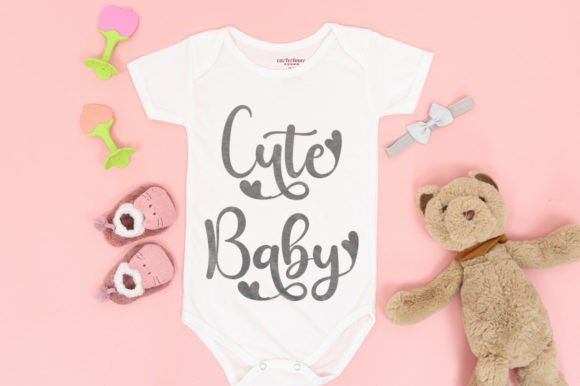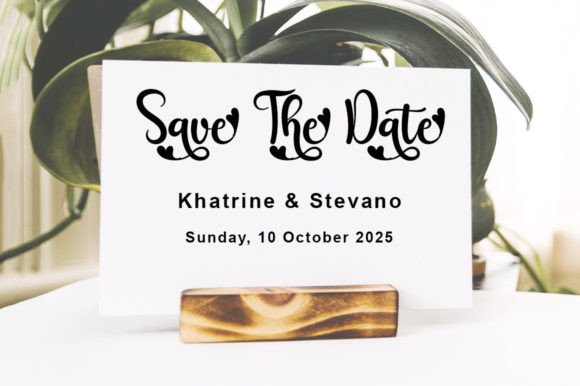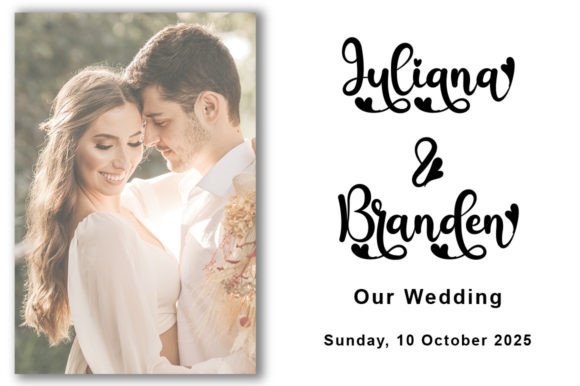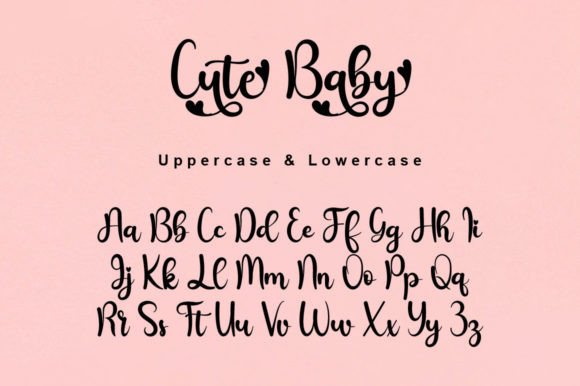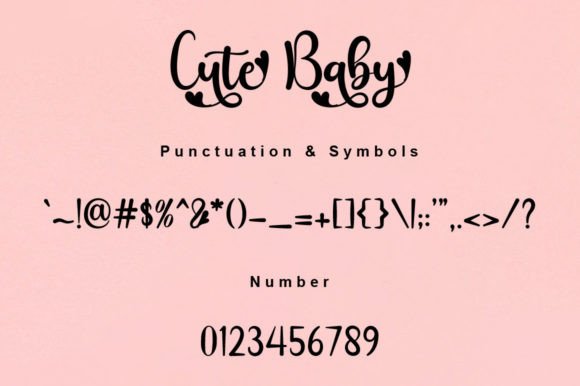
The Sweet Charm of Cute Baby Font
Who among us hasn’t been captivated by the whimsical world of handwritten fonts? Perhaps it was while browsing through a vintage book or admiring the intricate details of a handwritten card that you first fell in love with the art of handwritten typography. For designers, the quest for the perfect handwritten font is a never-ending journey, and today, we’re excited to introduce you to a new favorite: Cute Baby Font.
| 👤 Author | patahilah studio |
Cute Baby Font is an elegant and dainty handwritten font that features sweet and delicate swashes, making it perfect for adding a touch of whimsy to your designs. Whether you’re creating letterheads, titles, or stationery, this original look is sure to captivate your audience. The value of Cute Baby Font lies in its versatility and ability to add a personal touch to any design project, making it a valuable addition to any designer’s toolkit.
Cute Baby Font Key Features
- Character Set: The font includes a wide range of characters, including uppercase and lowercase letters, numbers, punctuation marks, and special characters, making it suitable for various applications.
- Unique Characteristics: The font’s unique design features rounded shapes, cute details, and a playful feel, making it perfect for applications that require a childlike or whimsical tone.
Cute Baby Font Review
I recently had the chance to work with the ‘Cute Baby Font’, and I have to say it’s a mixed bag. Here’s my honest review.
- The font is undeniably cute and perfect for child-related projects, like baby announcements, nursery decor, or children’s books.
- The font is highly customizable, with a wide range of colors and sizes available.
- The font is relatively easy to read, even at smaller sizes, making it a great choice for text-heavy projects.
- The font is not ideal for formal or professional projects, as it may come across as too childish.
- The font lacks bold and italic styles, which can limit its versatility.
- The font may not be suitable for projects that require a high level of sophistication or elegance.
Overall, I’d say the ‘Cute Baby Font’ is a great choice for projects that require a playful and whimsical touch. However, it may not be the best fit for more serious or professional projects.
Getting the Most Out of Cute Baby Font
Use Cute Baby Font for designs that require a playful, whimsical touch, such as:
– Baby-themed products (e.g., onesies, nursery decor)
– Children’s party invitations or decorations
– Educational materials (e.g., children’s books, worksheets)
Cute Baby Font is commonly used for:
– Creating cute and playful headlines or titles
– Adding a touch of whimsy to product labels or packaging
– Designing children’s products or educational materials